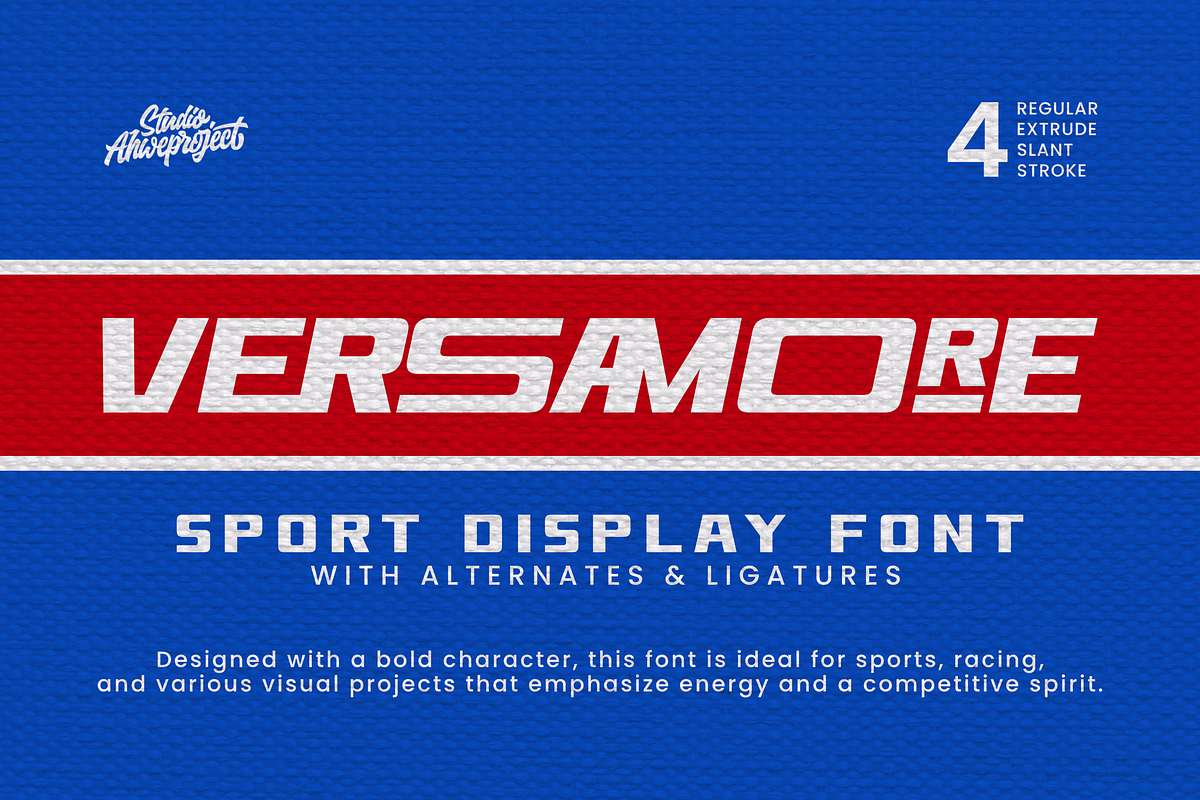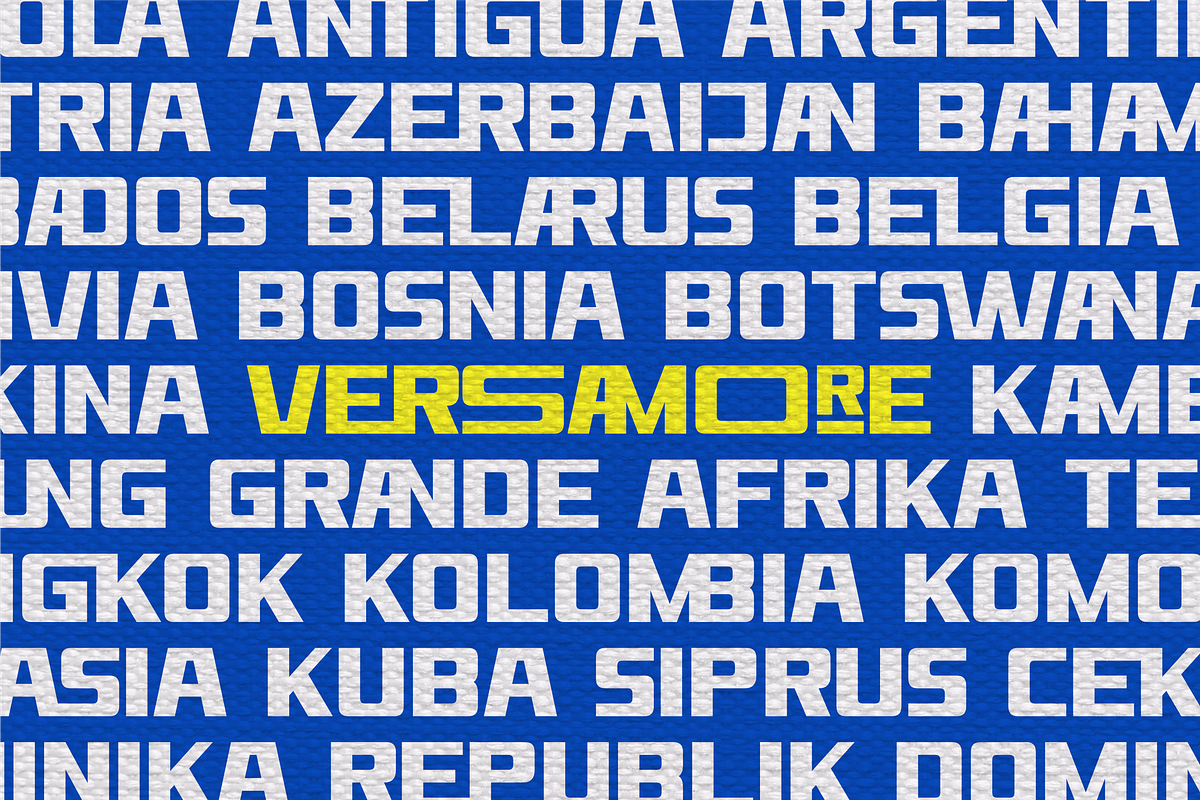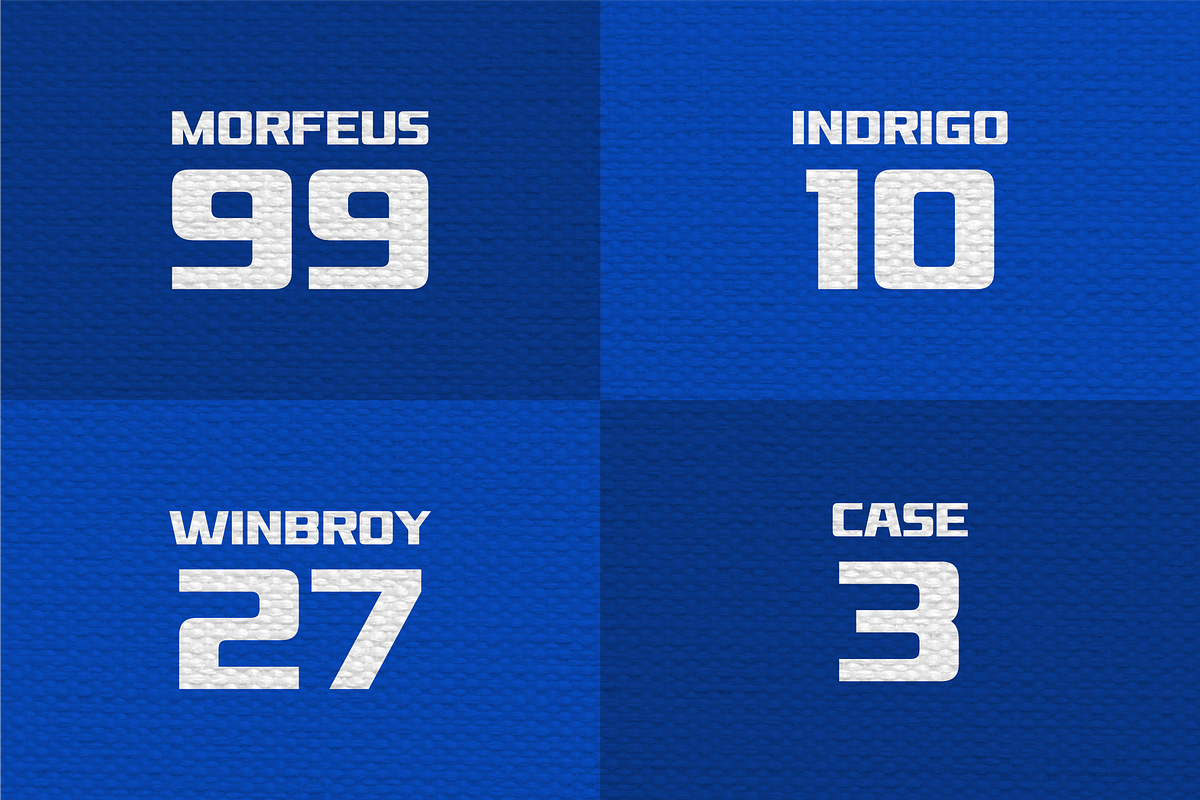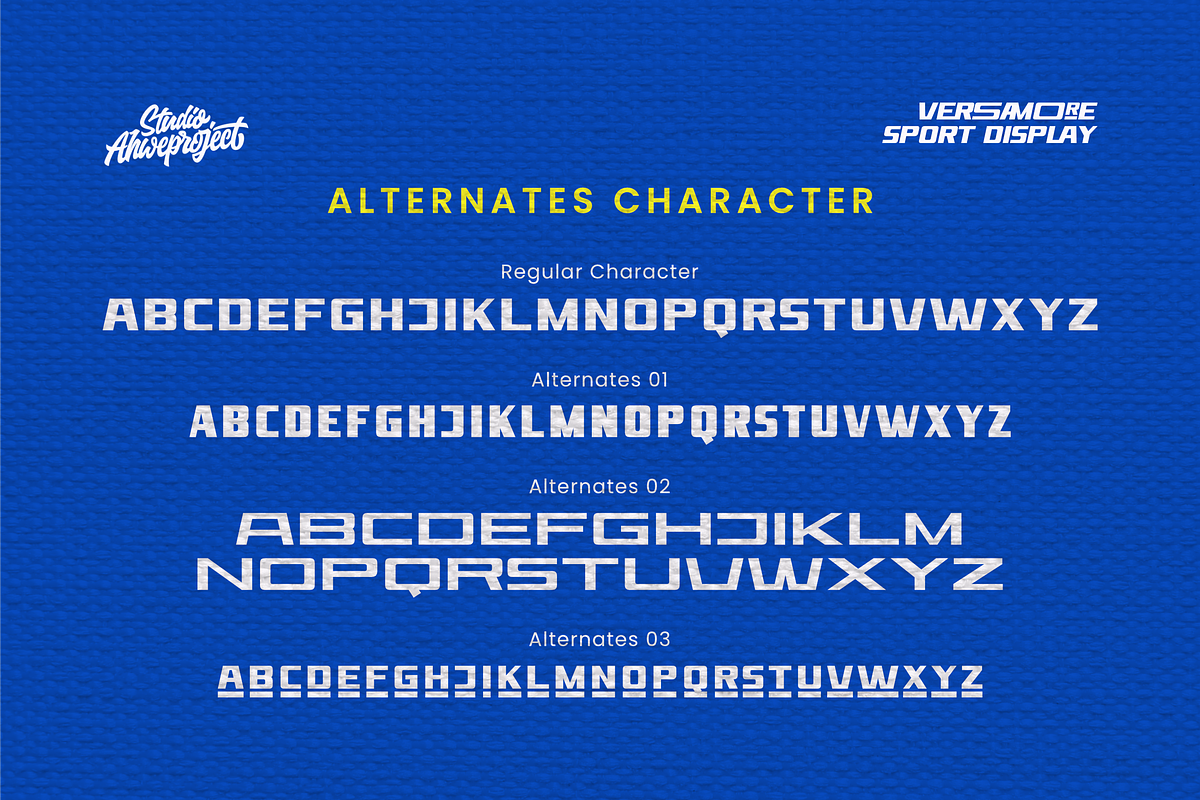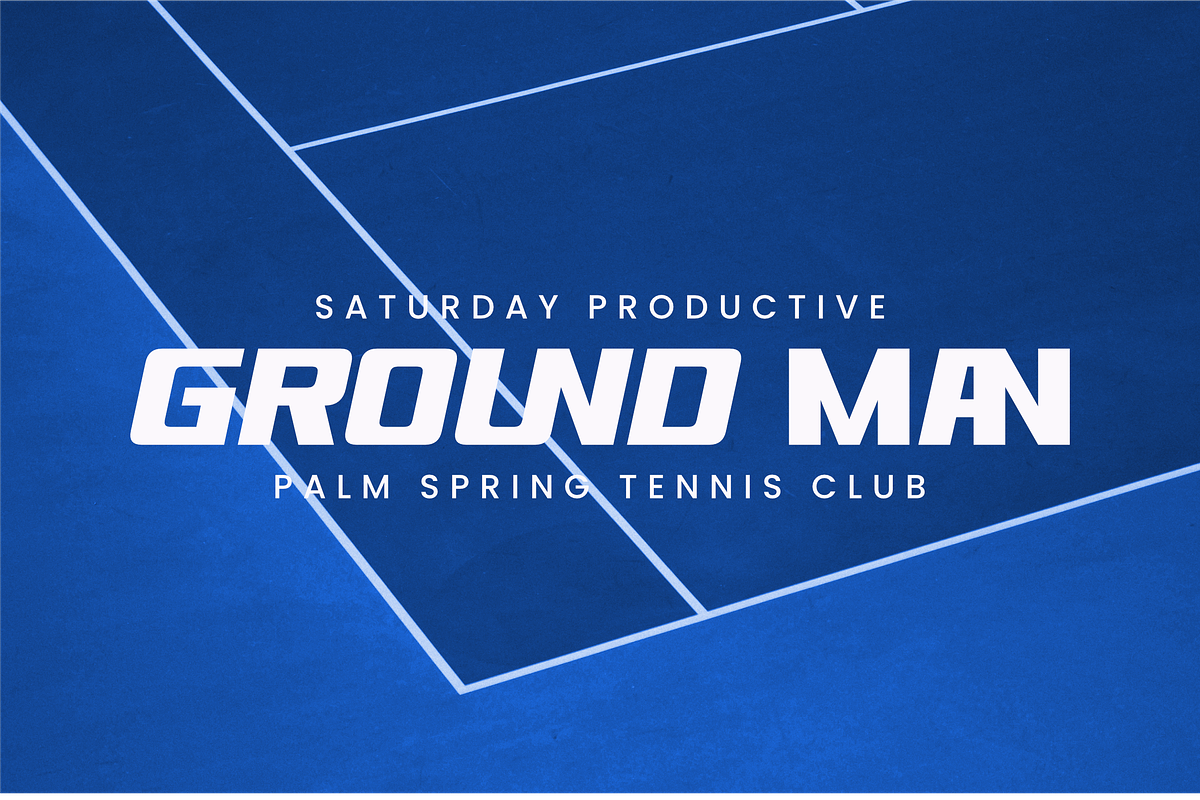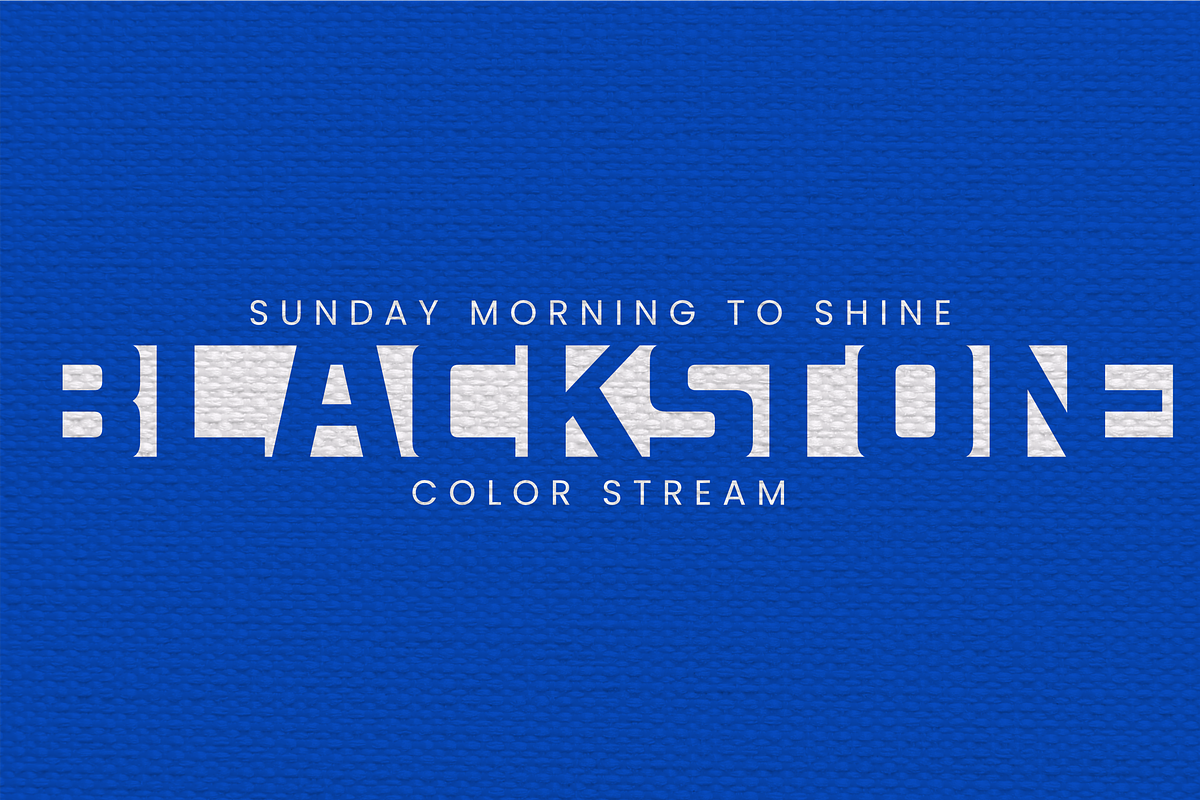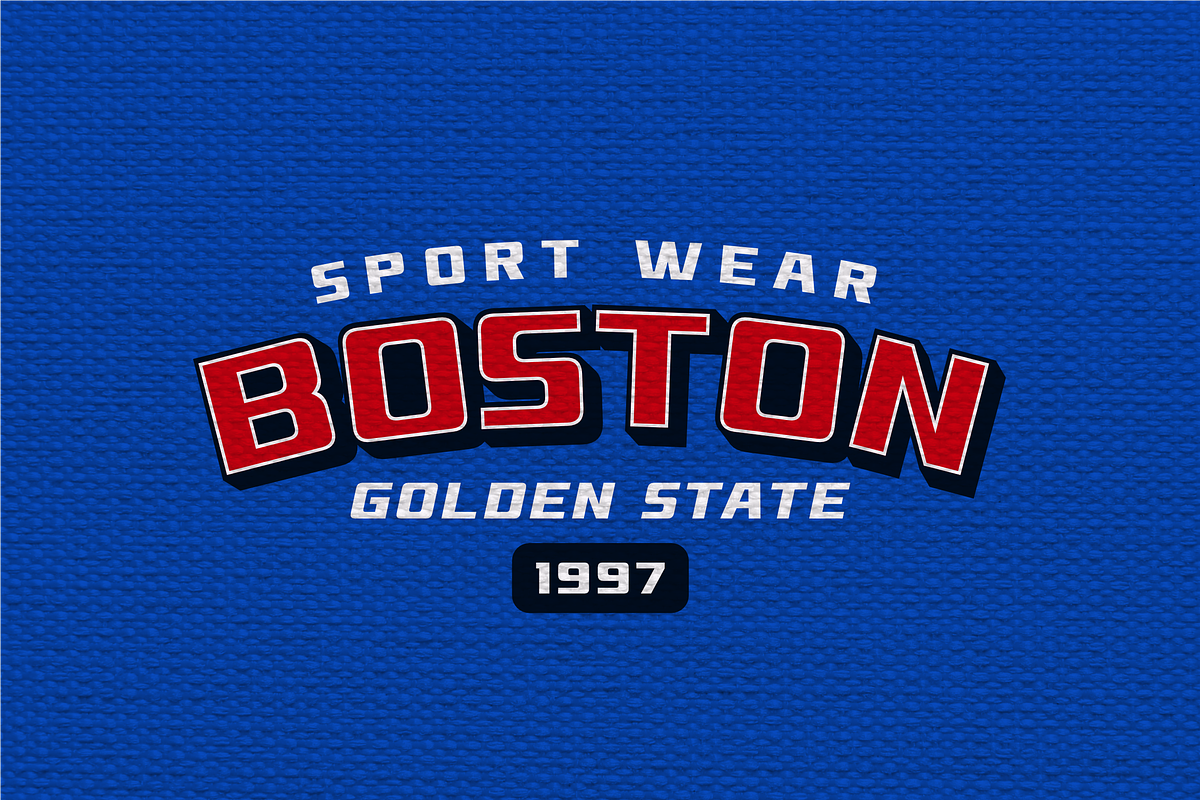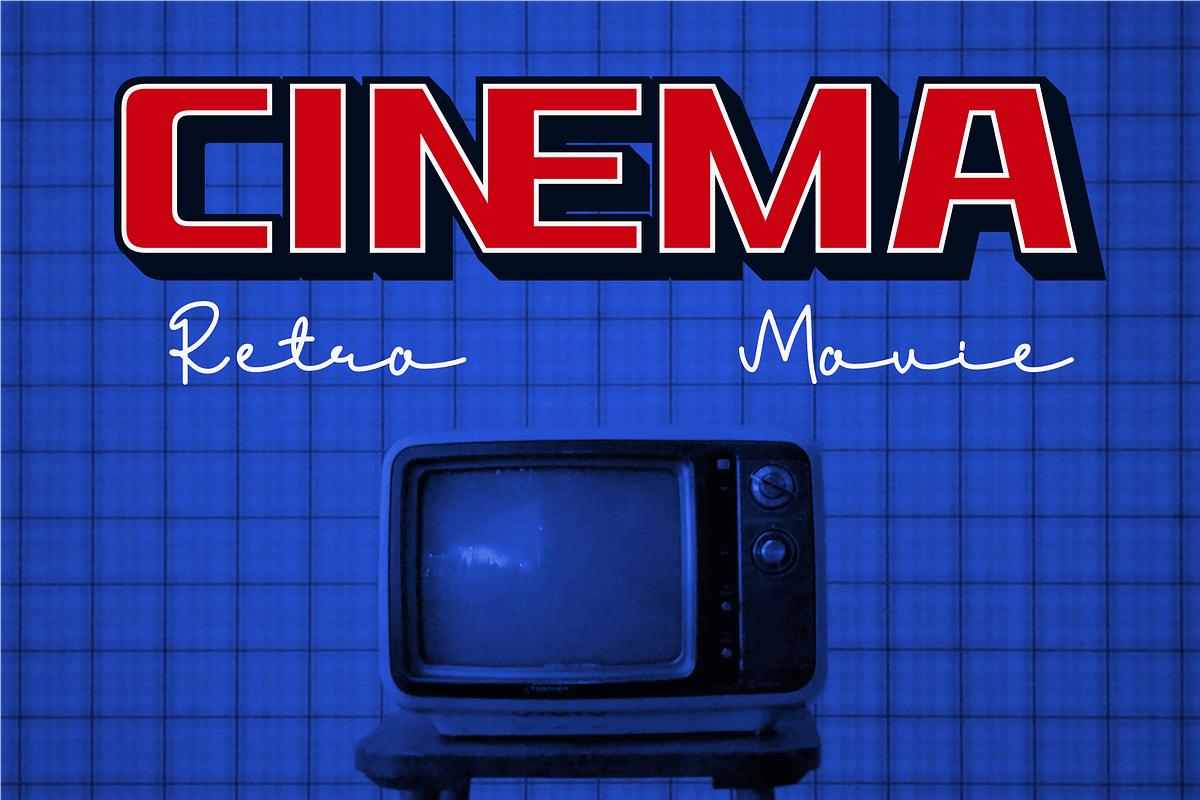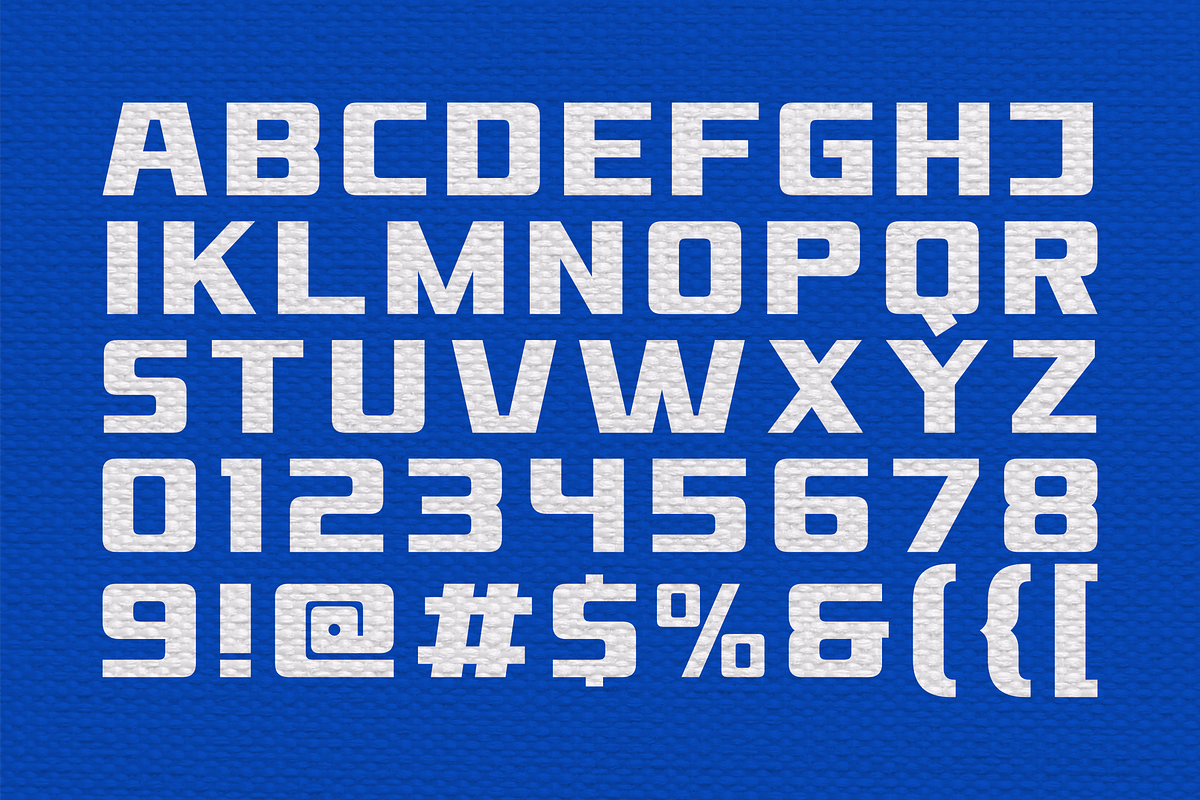
Versamore - Sport Display Font
Versamore is a modern sport-themed display font designed to bring energy, speed, and competitive spirit into your projects. With its bold, dynamic, and masculine look, this font is perfect for sports branding, racing, esports, and any promotional designs that demand a strong visual impact.
4 font styles: Regular, Extrude, Slant, and Stroke
Includes alternates and ligatures for versatile looks
All uppercase letters for a bold, dominant presence
Perfect for team logos, jerseys, tournament banners, and merchandise
Best Used For: Designs with sports, racing, esports, athletic apparel, or any visuals that need a fast, strong, and competitive vibe.
Use Versamore to take your visual identity to the next level—bold, energetic, and full of action!